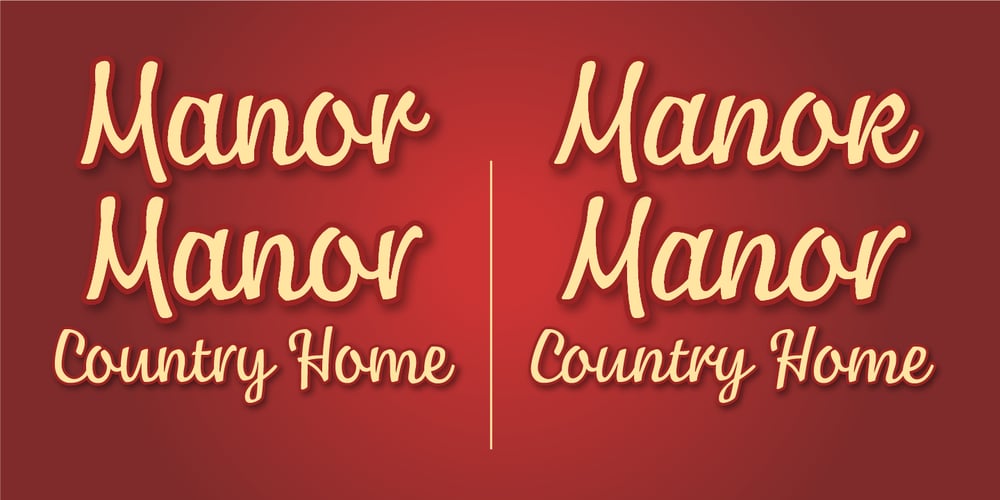
Manor
Manor font
Manor Font Family was designed by John Nahmias and published by Jonahfonts. Manor contains 2 styles and family package options. Manor script is designed with an oval brush and a pen, with two alternate [ r’s ] completing the connected lowercase handwritten appearance.Suitable for Captions, packaging, cards, posters, ads, book jackets, manuals, and menus, short text and paragraphs.